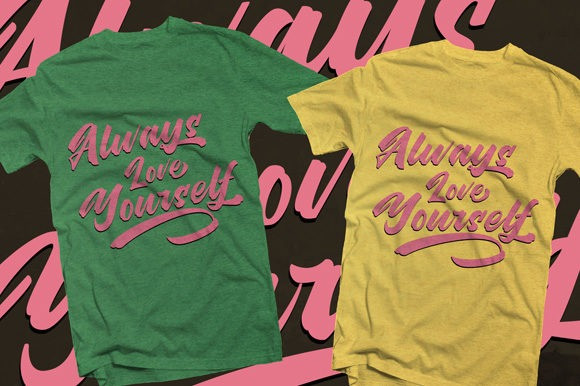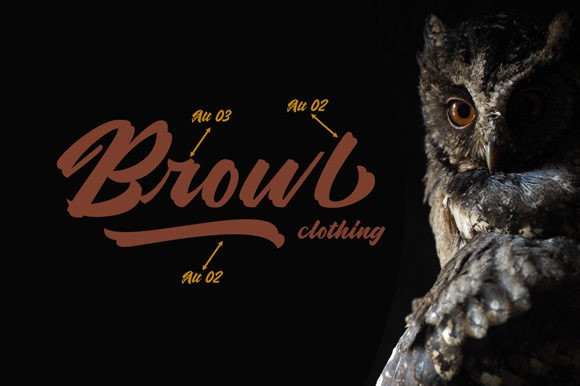
Black Ground Display Font
Black Ground Display Font made with a fresh urban edge; delivering a stylish script which is guaranteed to add an eye-catching appeal to your logo designs, brand imagery, quotes, product packaging, merchandise & social media posts